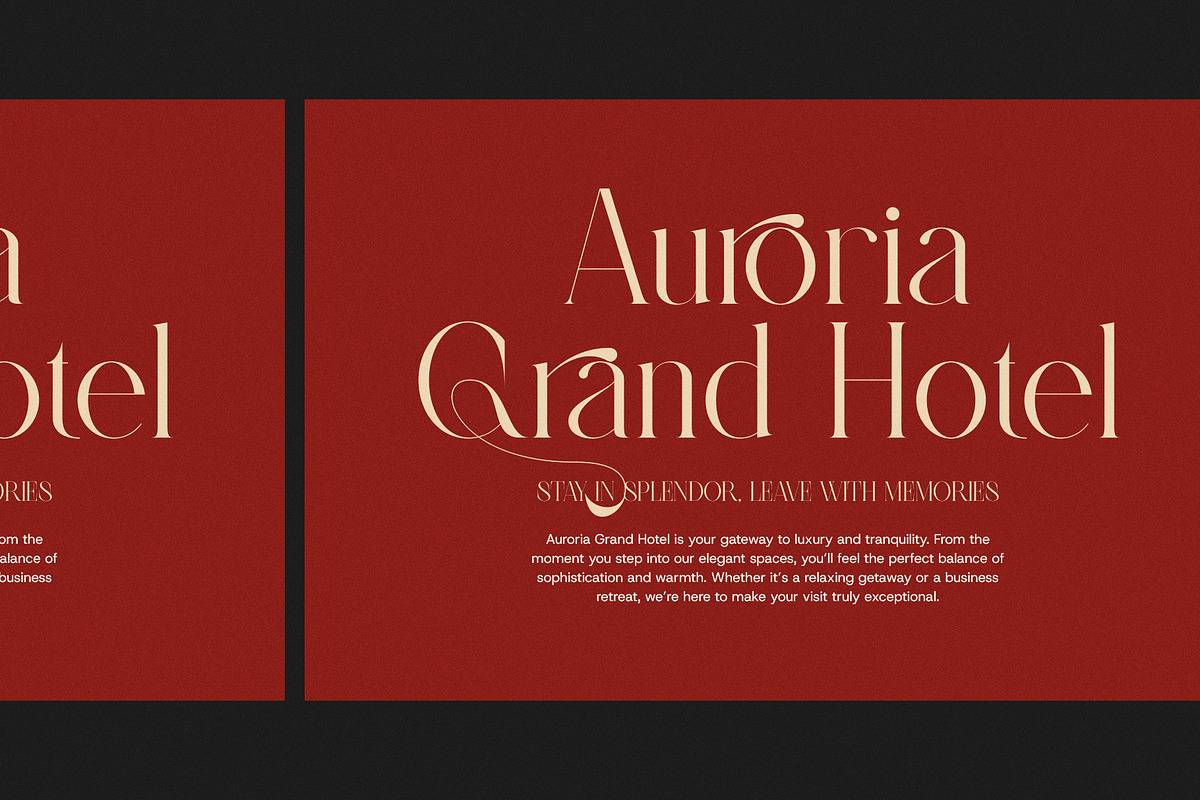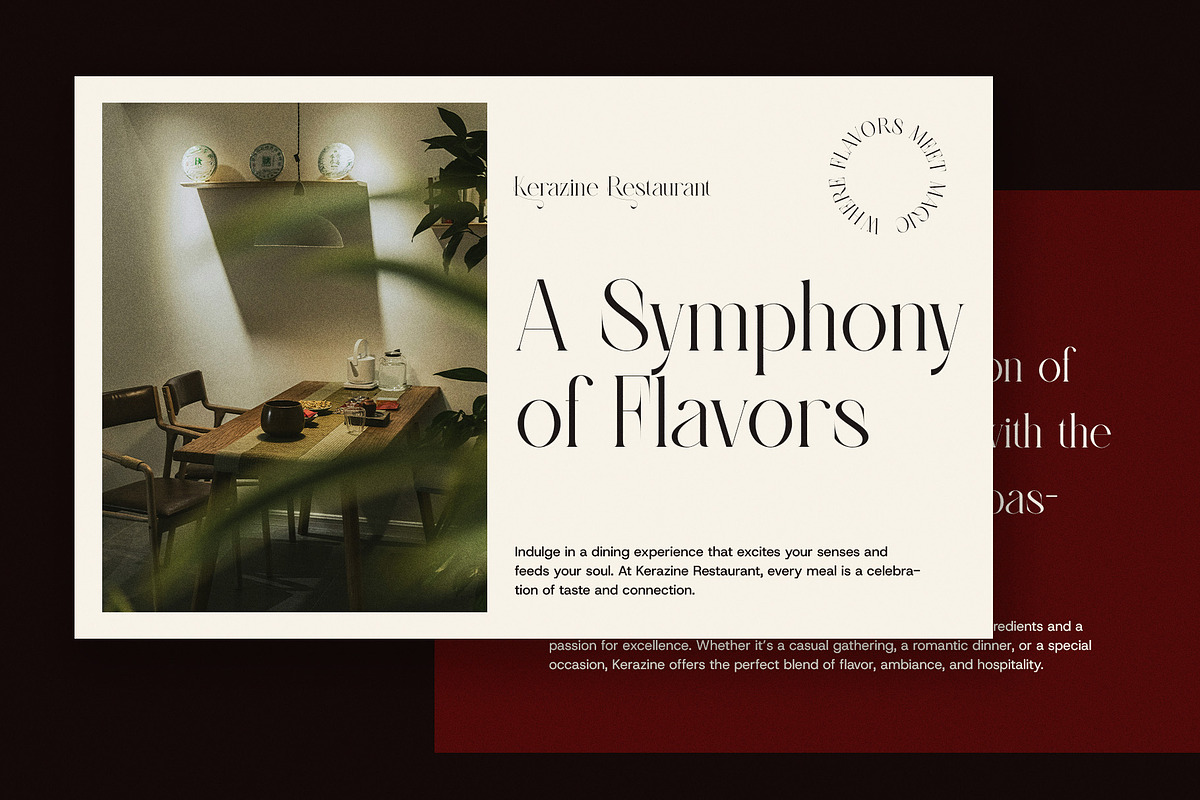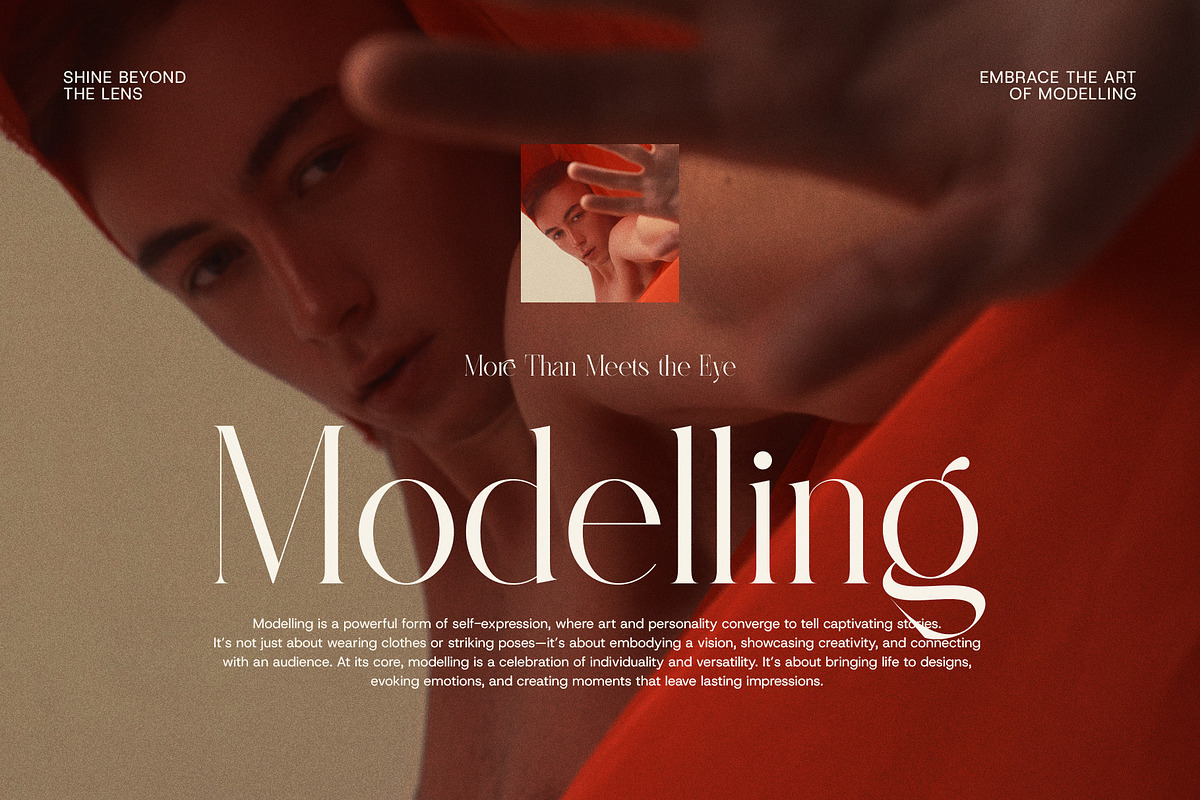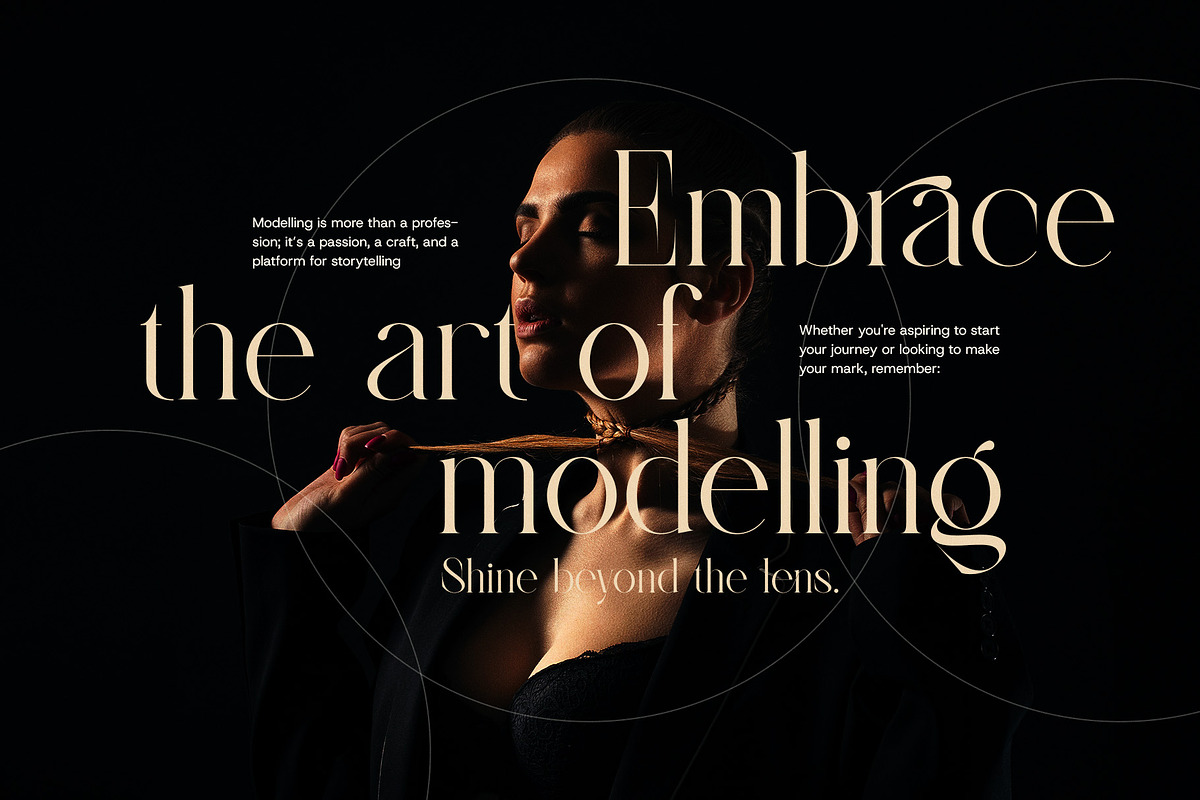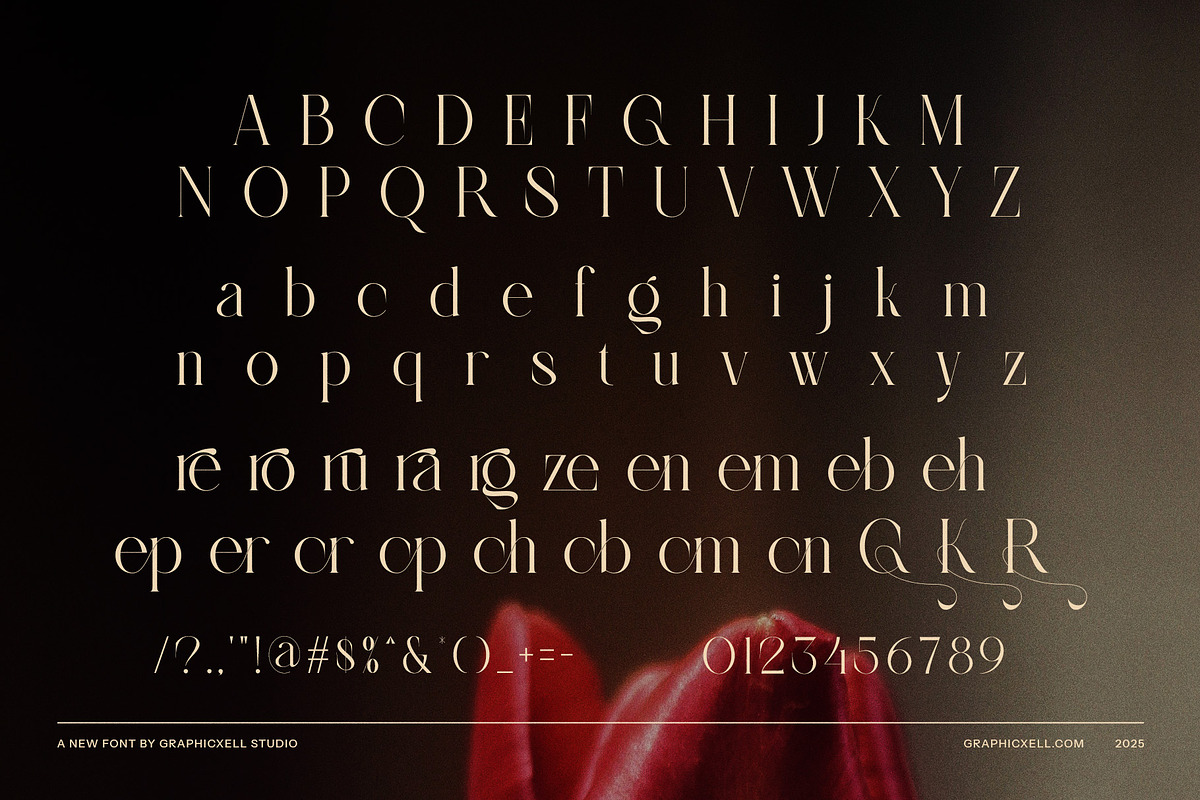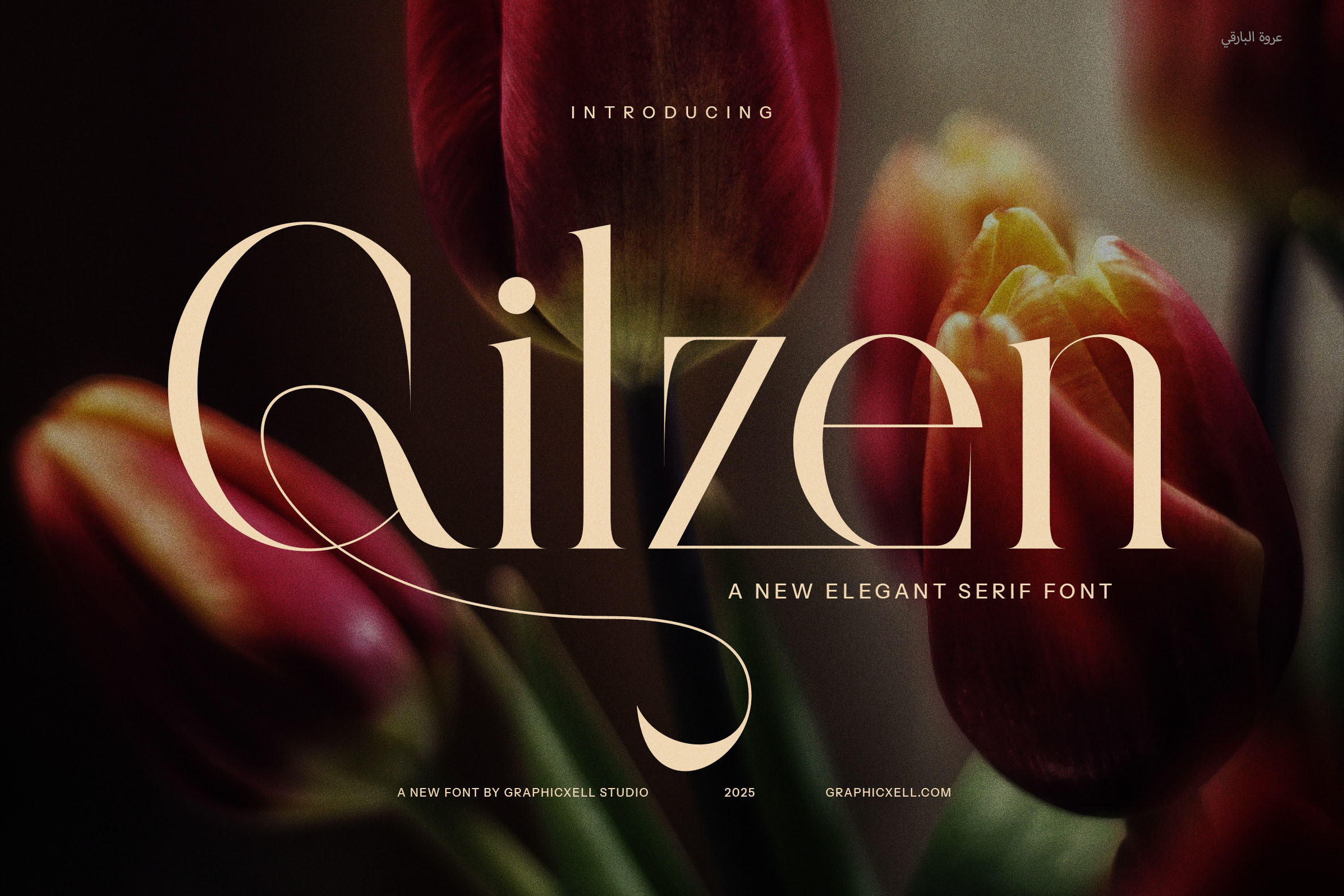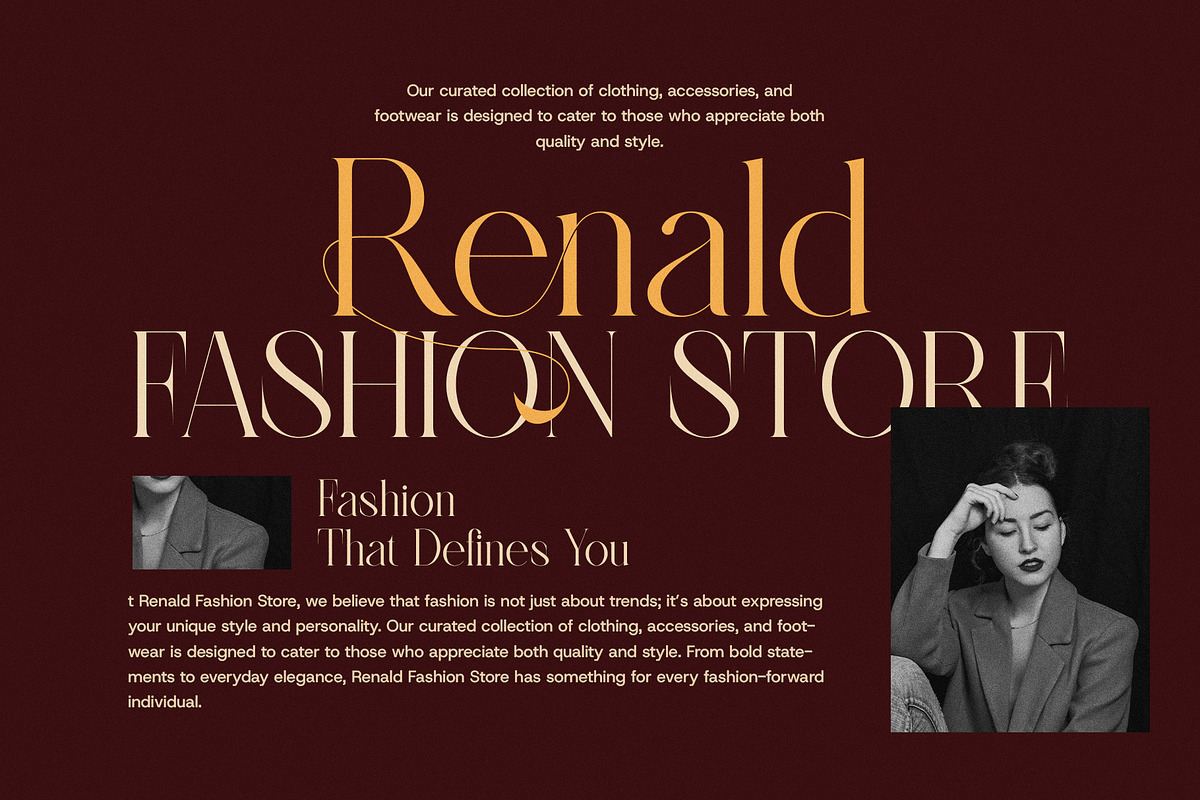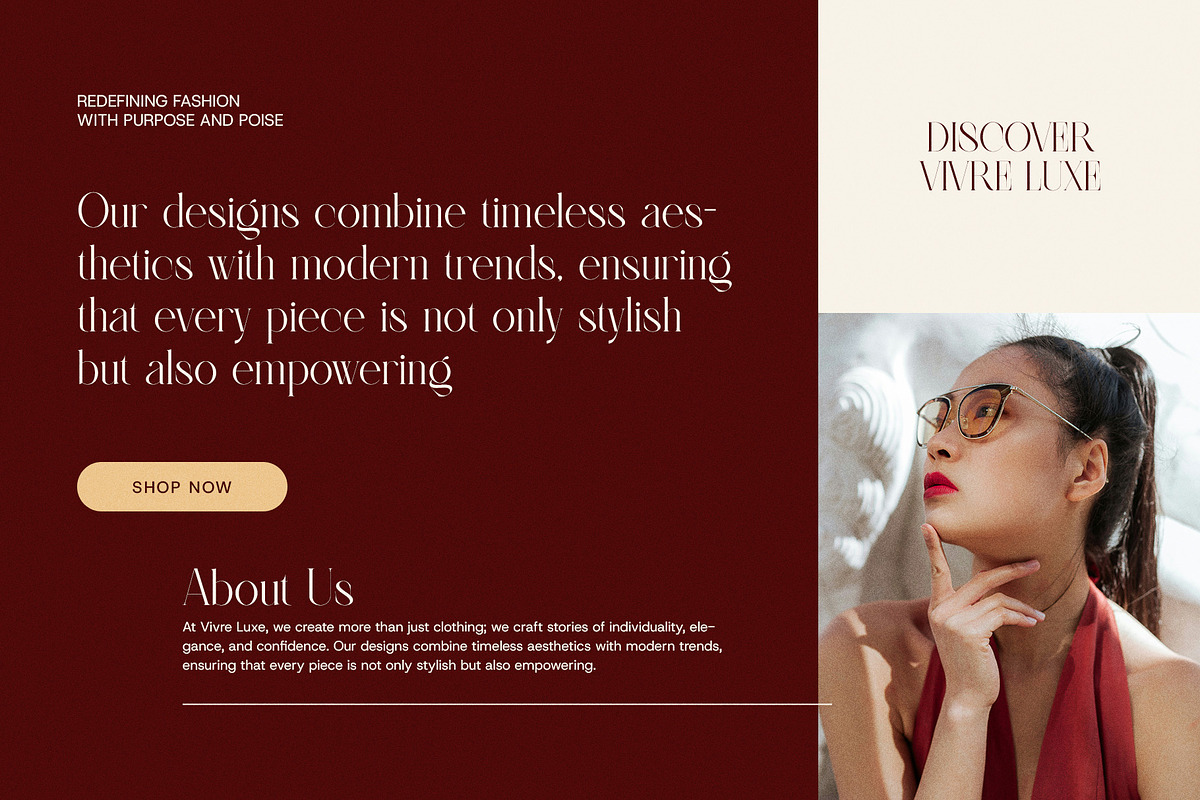
Glizen Elegant Serif Font
Glizen Elegant Serif Font is a modern and stylish typeface that effortlessly blends sophistication with creativity. Its sleek serifs, balanced proportions, and graceful curves create a harmonious look that works beautifully across a range of design projects. With distinctive ligatures and alternate forms, Glizen offers endless possibilities for personalization, allowing you to craft unique and eye-catching typography.
This font is an excellent choice for luxury branding, where elegance and clarity are essential. Glizen shines in logo design, helping your brand stand out with a refined and timeless aesthetic. Its polished forms also make it perfect for product packaging, advertisements, and other high-end marketing materials. Whether you're designing for a boutique, a fashion brand, or a premium product line, Glizen brings an air of sophistication that leaves a lasting impression.
Beyond branding, Glizen is perfect for editorial projects such as magazines, websites, and layouts. Its balance of modern design and readability makes it ideal for both striking headlines and detailed body text, ensuring your content looks polished and professional. Whether in print or digital formats, Glizen adapts effortlessly to any medium.
From gourmet food labels to fashion lookbooks, Glizen Elegant Serif Font adds a refined touch to every project. Its versatility and unique features make it a go-to choice for designers looking to create elegant, memorable, and impactful designs. Make your typography stand out with Glizen, and let your projects exude timeless elegance.